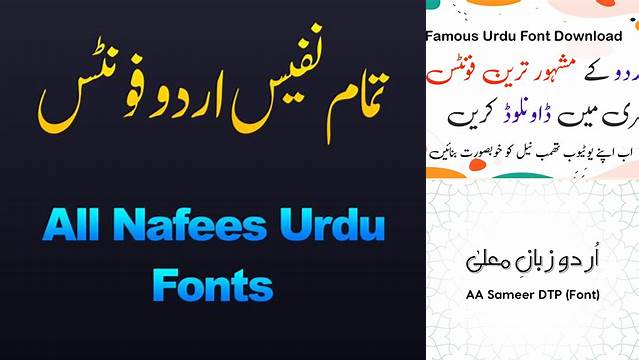
What Makes Urdu Fonts Special?
Urdu fonts are more than just letters; they're a visual representation of a rich culture and language. The Nastaliq script, often used for Urdu, is renowned for its beautiful curves and flowing strokes. These fonts are not merely functional; they're artistic expressions that can elevate any project. They can be a captivating medium to express your message. Whether you're designing a poster, crafting a website, or writing a document, the right Urdu font can make all the difference. It's not just about readability; it's about capturing the essence and spirit of Urdu. The visual appeal is very important for your reader to keep engaged, but also it helps to translate the message that you want your readers to consume. The most popular style that is used in Urdu is Nastaliq, which is a calligraphic style that emphasizes the graceful flow of the language. It is a testament to the enduring legacy of the language and its artistic roots. The selection of fonts and the way they are used is very important for your design. The fonts you use must go with the topic and message that you want to provide. To find the perfect font can be a challenge, but don't worry, it's the fun part of the process! The variety is vast, offering a range of styles that complement various design preferences. Using free Urdu fonts provides an excellent way to improve your design and your project overall.
When you start working with Urdu fonts, you'll immediately notice the unique character shapes and the way they connect, creating a visually harmonious whole. This is what sets them apart from other languages. This distinct aesthetic adds a layer of sophistication to your designs. Each font carries its own personality, so you can find one that perfectly matches your project's tone and style. This visual elegance is one of the most important reasons to include these fonts in your project. The visual is very important for a design because this is the first interaction that the reader will have with your project, so you need to ensure that your reader will have the best experience.
The Beauty of Nastaliq
As we mentioned, Nastaliq is the king of Urdu script styles. It is a calligraphic style characterized by its flowing, cursive forms, and is often used in Urdu. The letters gracefully connect, creating a visually appealing and cohesive text. The curves and flourishes add elegance and sophistication, making the text a visual treat. Nastaliq fonts can be used in a multitude of ways, from elegant invitations to branding and even website headers. They are versatile and can be used in many designs. Nastaliq fonts are not just about beauty; they also carry a strong sense of cultural identity. They are a tribute to the rich literary heritage of Urdu and a celebration of its artistic traditions. Choosing the right Urdu Nastaliq font means capturing the essence of Urdu. You will improve your design, and give it a unique touch. Also, it is important to respect the script and the culture that it is representing.